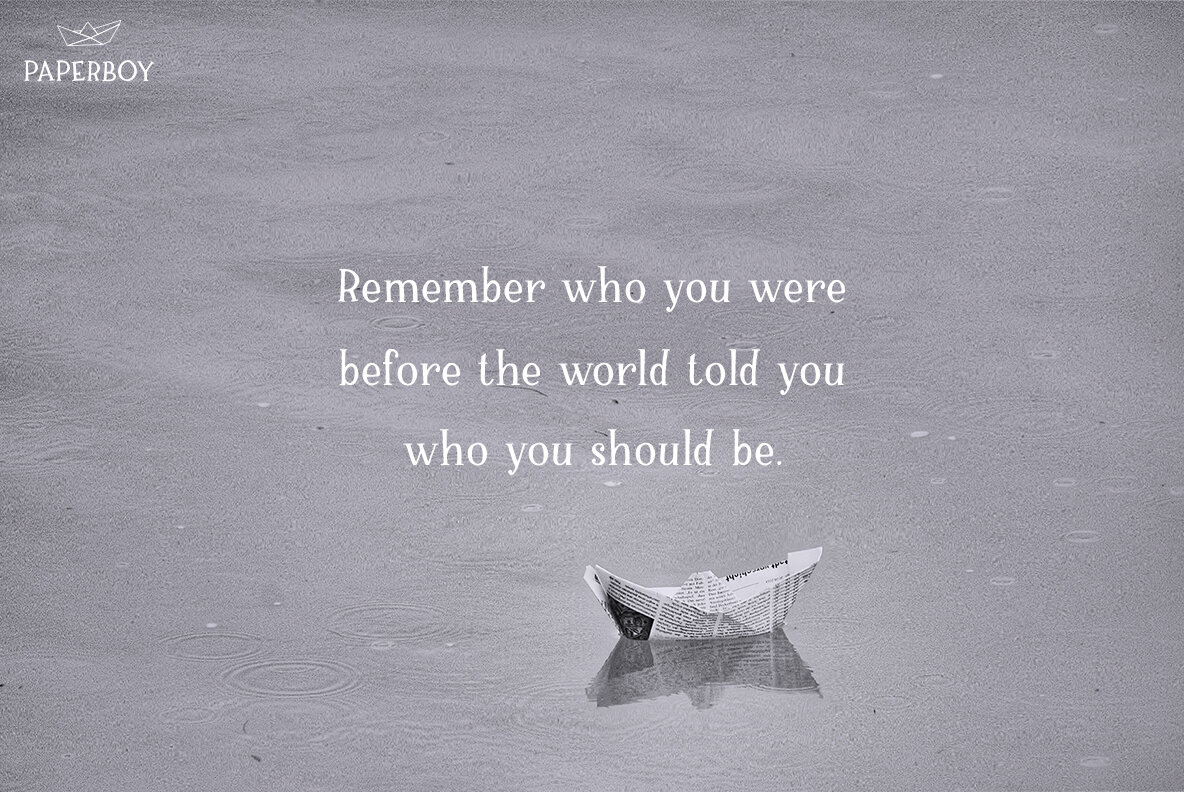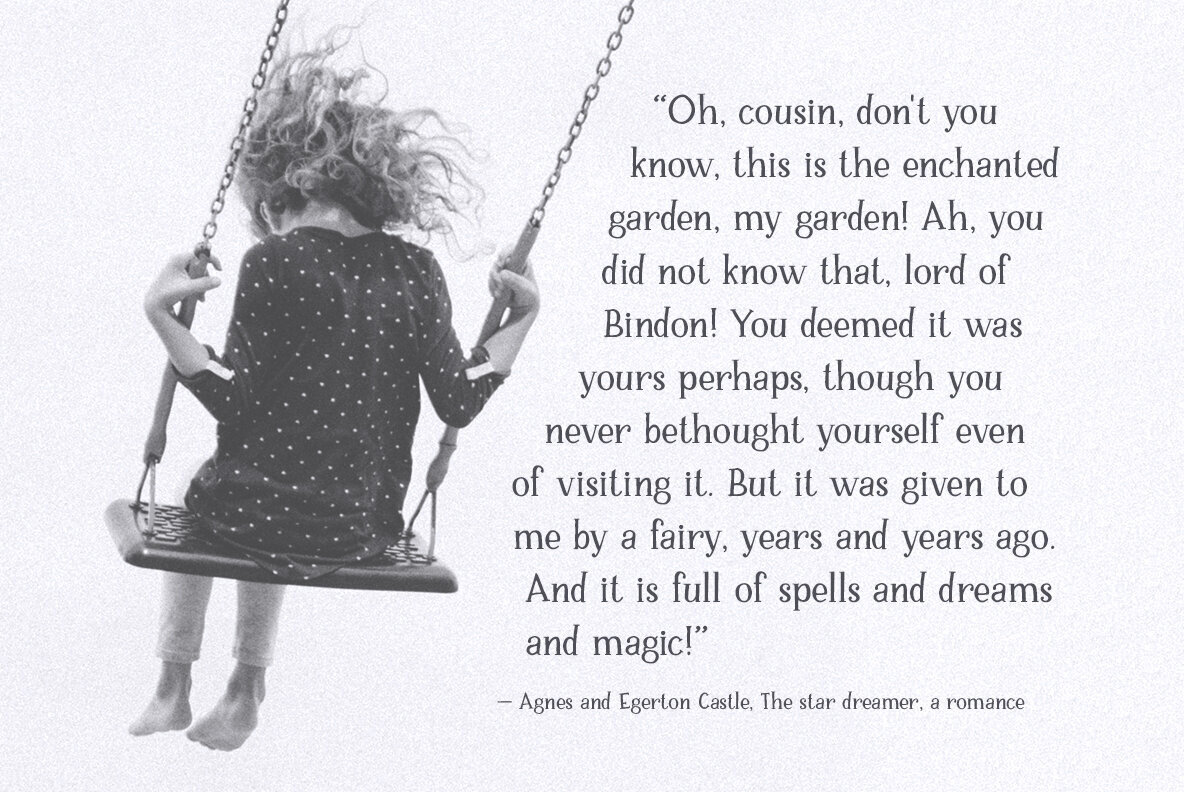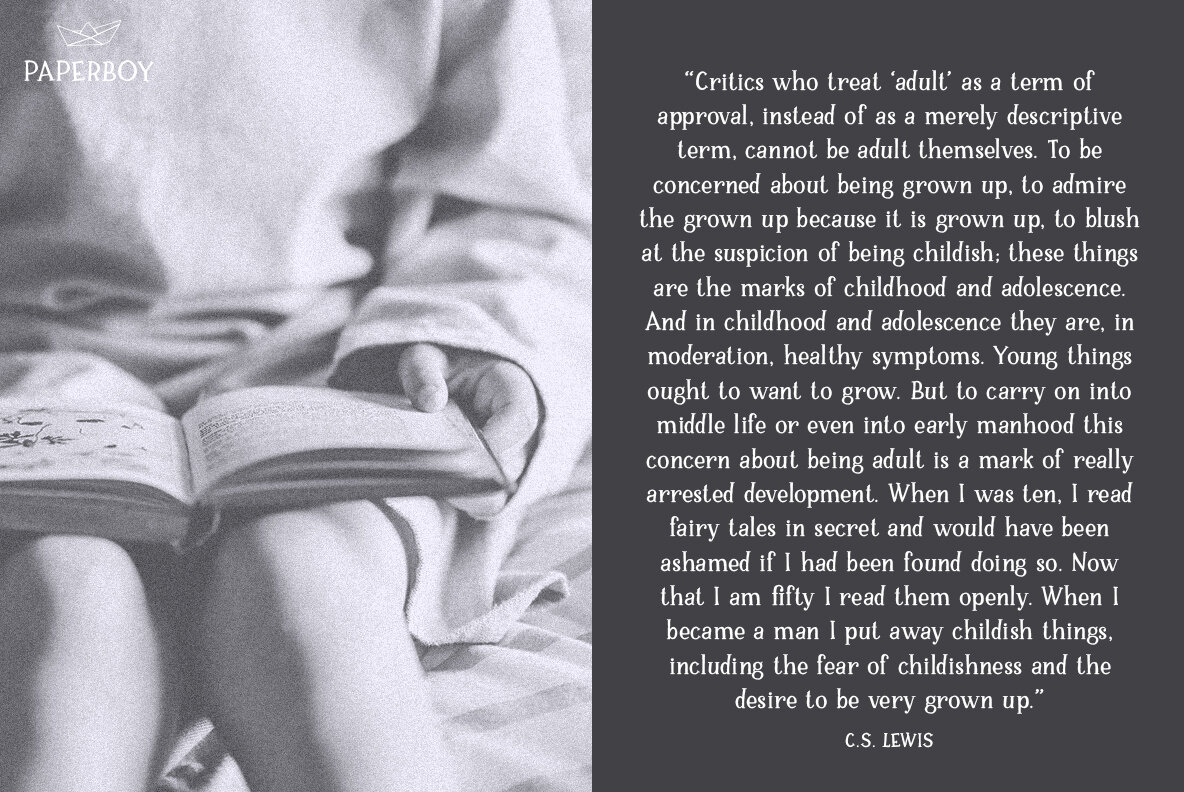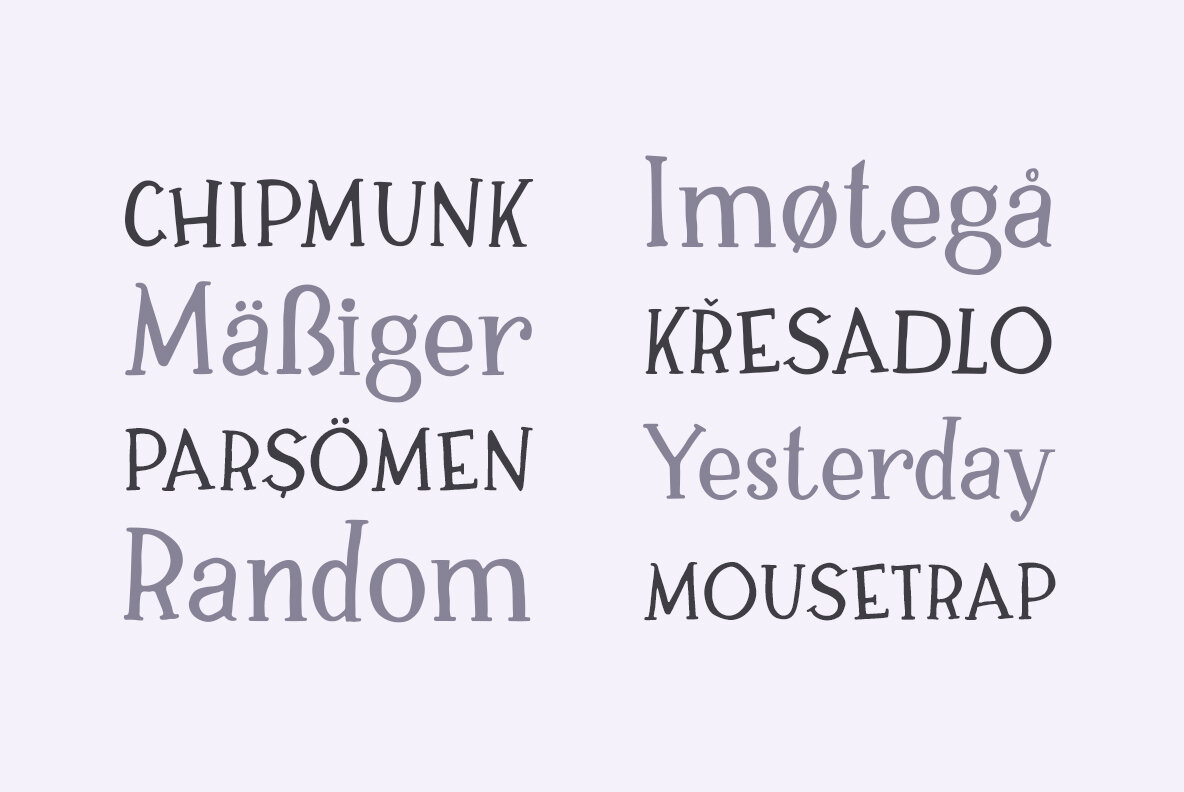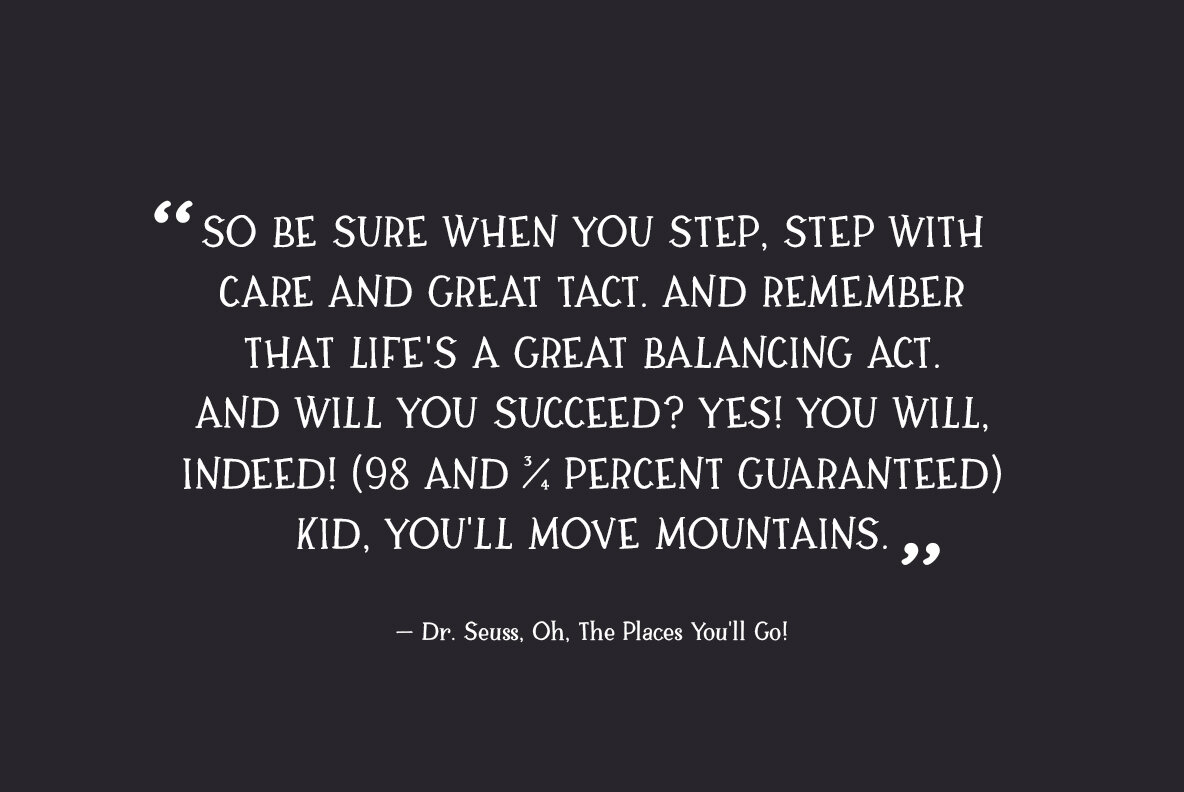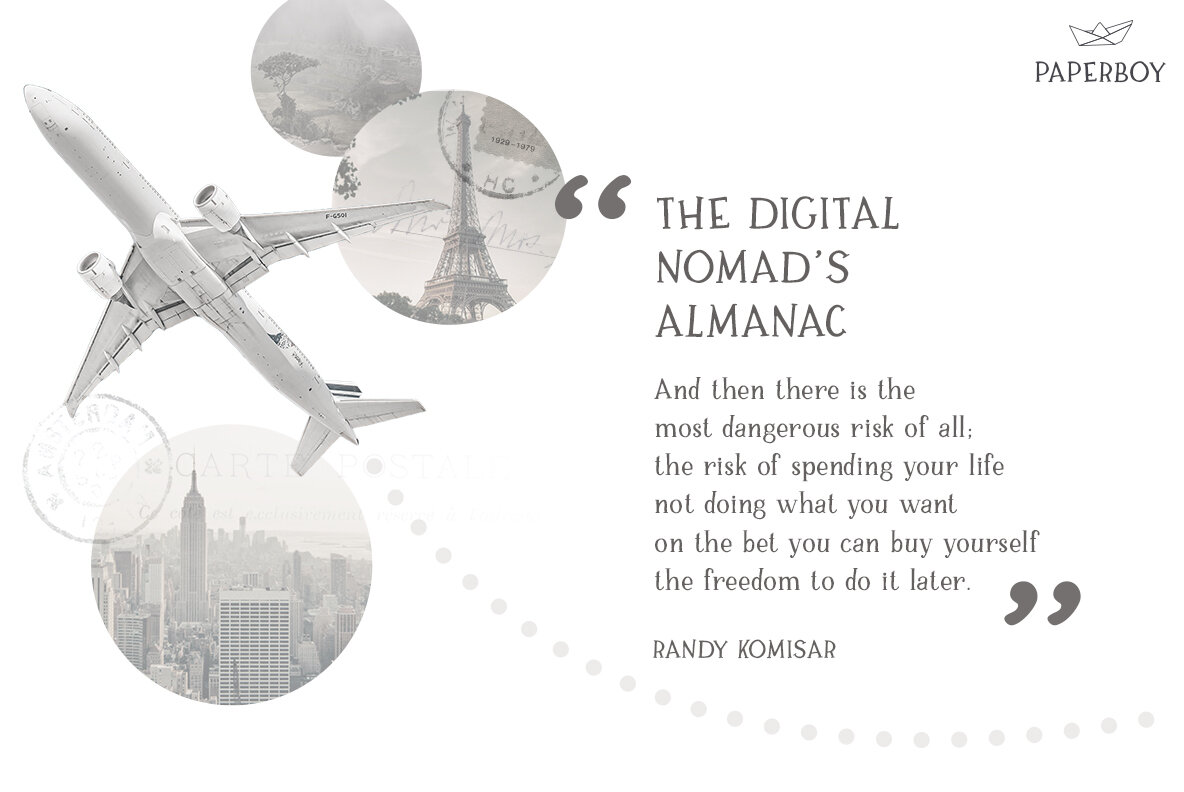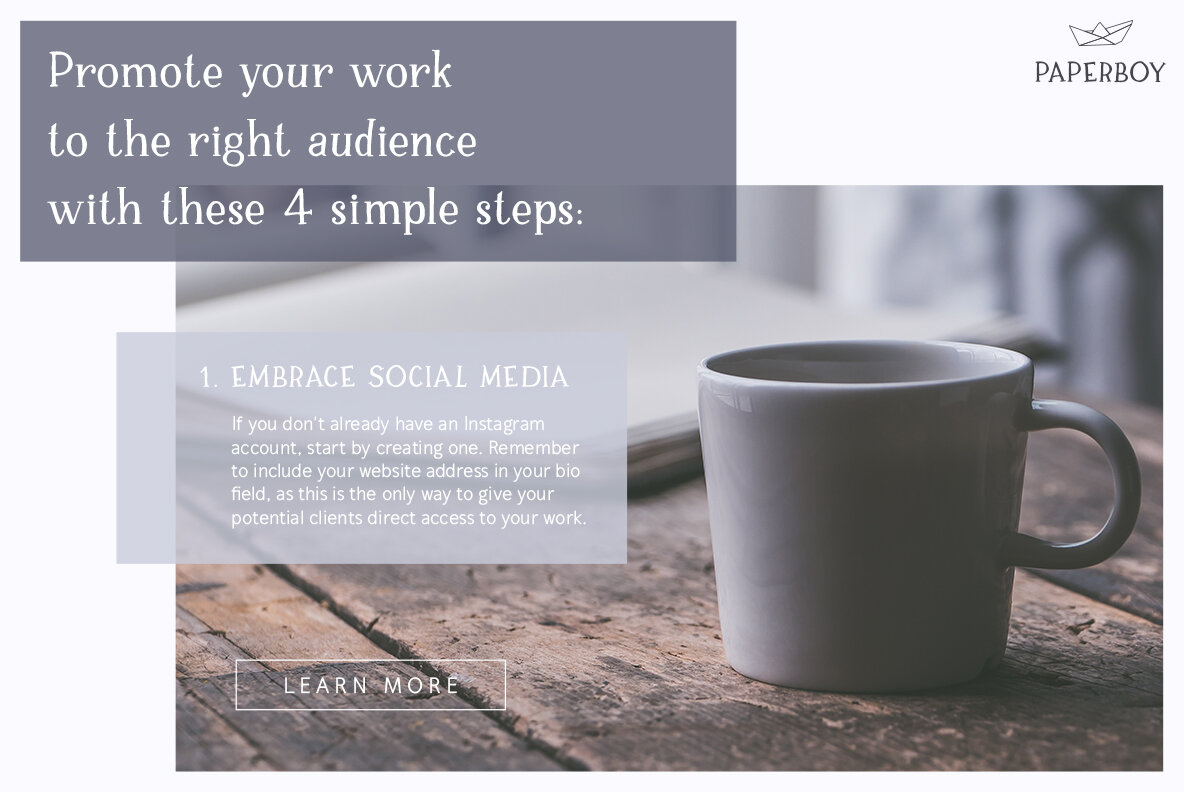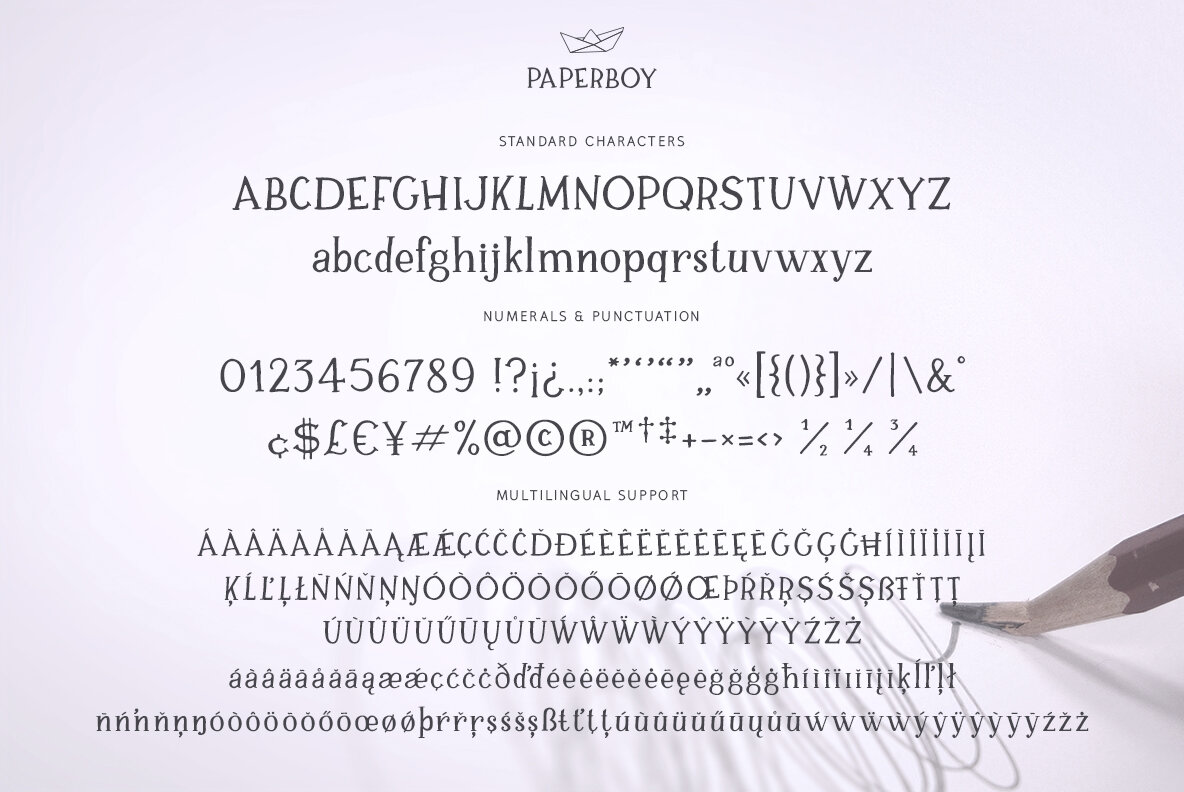
Paperboy is a hand-drawn serif font boasting a whimsical and playful appearance. Embracing a lighthearted attitude, Paperboy departs from the typical seriousness of serif fonts while still adhering to the essential typographic principles. This charming typeface is perfect for adding a touch of fun and quirkiness to your design projects.
Ayça Atalay is an independent typeface designer based in Istanbul.